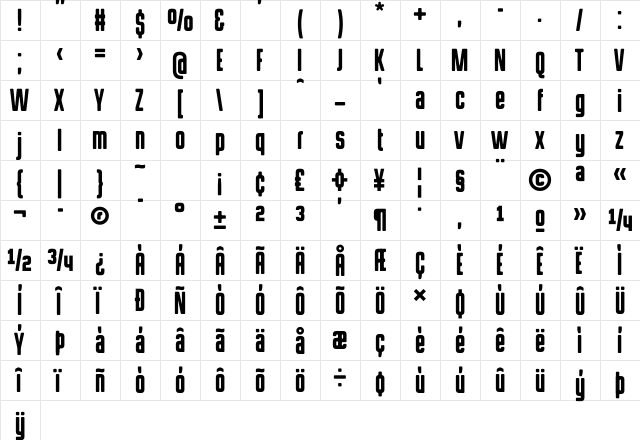
HermanoAlto Round Regular
| Foundry | Levi Szekeres |
| Designer | Levi Szekeres |
Design Context for HermanoAlto Round Typeface
HermanoAlto Round uses gentle rounded endings to create a warm, inviting typographic personality — less corporate than geometric sans, more refined than playful display fonts.
Well-suited to UI design, mobile interfaces, and any brand that wants approachability without sacrificing clarity.
Font Pairing: Pairs well with a rounded or humanist sans for body copy, maintaining the friendly tone without relying on HermanoAlto Round to carry extended reading.
Pro Tip: Use HermanoAlto Round for UI elements, app interfaces, and anywhere a friendly, approachable tone needs to be maintained without sacrificing clarity.